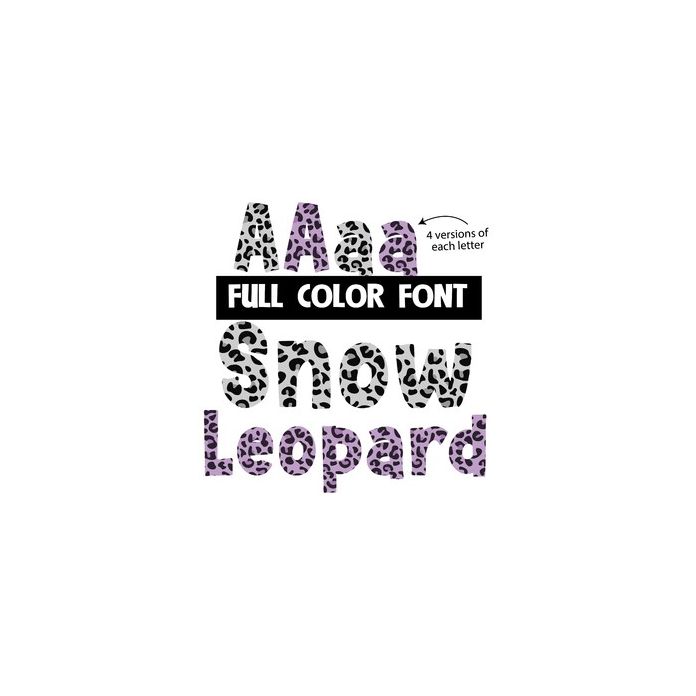
This cute, crafty, full-color font features a snow leopard print throughout. A secondary print in purples is available through your system or Silhouette's glyph map.